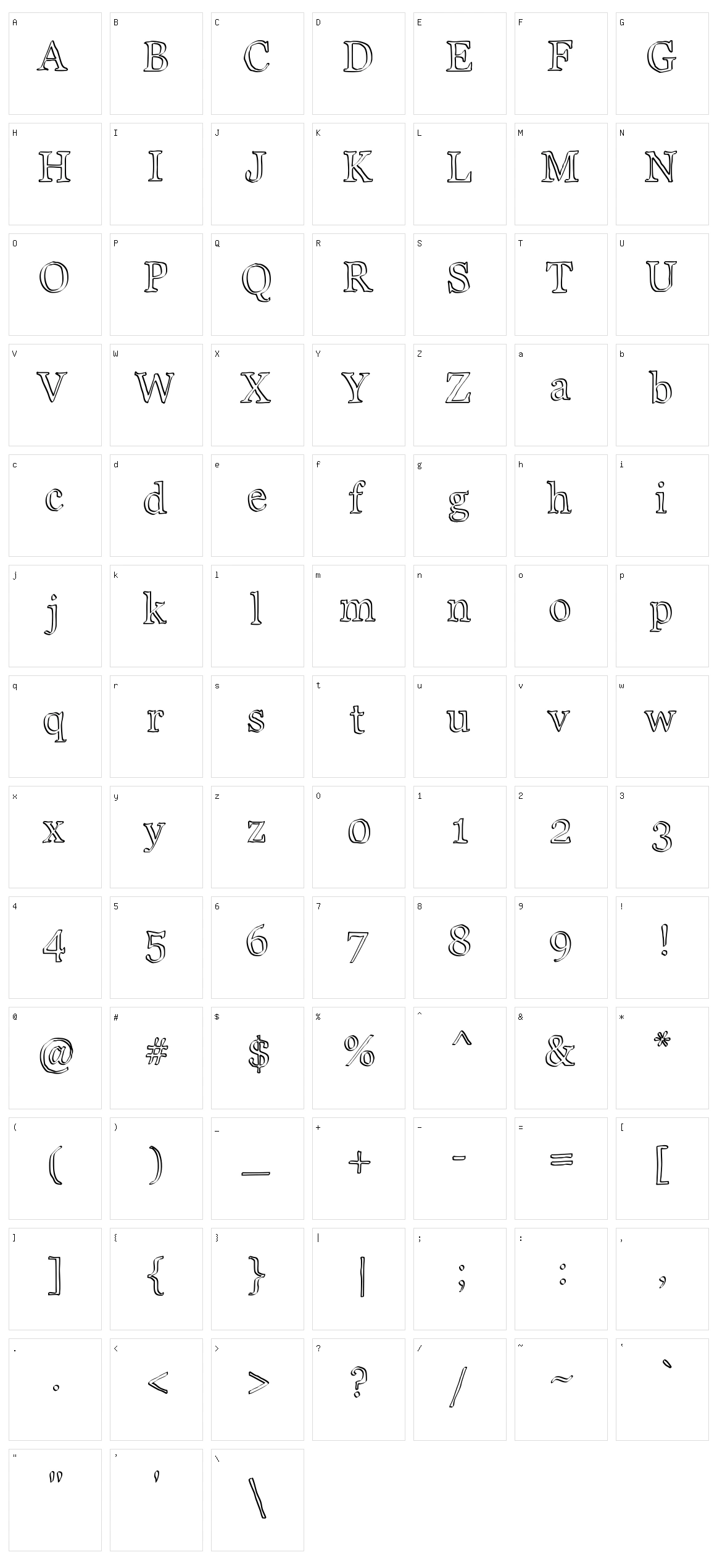
The free font JD Carnival is carefully designed by Jecko Development, showcasing a thoughtful balance of creativity and usability and falls under the Eroded font style. When you download the ZIP file, it contains only 92.59 KB of font files, making it lightweight and quick to download. Please review the license details below to understand permitted usage and distribution rights. If license information is not available, we recommend using this font for personal projects only or contacting the author directly for commercial usage permissions.